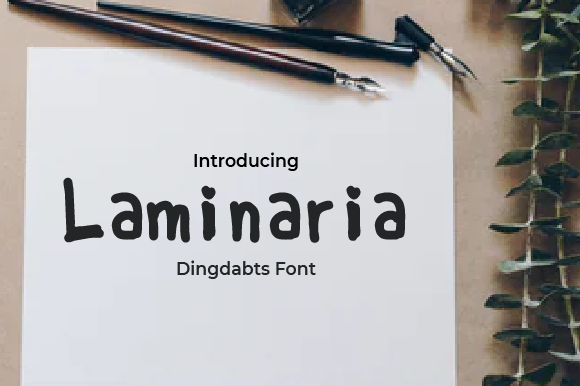
Introduction to Laminaria Font
Have you ever stared at a blank page, waiting for inspiration to strike? You’ve got a creative project in mind, but the perfect font is nowhere to be found. The search for the ideal design resource can be overwhelming, but what if I told you that you’ve been searching for it in the wrong place?
Enter Laminaria Font, a sweet and friendly handwritten font that’s about to become your new best friend. Its natural and unique style makes it incredibly fitting to a large pool of designs, limited only by your imagination. Whether you’re working on a personal project or a high-quality design for a client, Laminaria Font is the perfect addition to take your work to the next level.
Key Features of Laminaria Font
- High-quality design resource for creative projects, ideal for use in graphic design, digital art, and web development.
- Unique, elegant design that can be used to add a touch of sophistication to any creative project or design resource.
- Perfect for use in logos, typography, and other design elements where a high-quality, custom font is required.
Honest Review: Laminaria Font
As a designer, I’m always on the lookout for high-quality design resources to elevate my creative projects. Recently, I had the opportunity to try out the Laminaria Font, and I’m excited to share my honest review.
What works well: ✨ The Laminaria Font is incredibly versatile, making it perfect for a wide range of creative projects, from logos to typography-based designs. The font’s sleek and modern design is sure to impress, and the high-quality vectors make it easy to scale up or down without losing any detail. Additionally, the transparent background allows for seamless integration with any design element.
- High-quality vectors: The font’s vectors are crisp and clear, ensuring that your designs look professional and polished.
Limitations: ⚠️ While the Laminaria Font is an excellent choice for many designers, it may not be suitable for projects that require a more traditional or serif font style.
Overall impression: I’m thoroughly impressed with the Laminaria Font. Its versatility, high-quality vectors, and transparent background make it an excellent addition to any designer’s toolkit. Whether you’re working on a logo, typography-based design, or anything in between, the Laminaria Font is sure to deliver.
Laminaria Font
Tips for Getting the Most Out of Laminaria Font
To maximize the effectiveness of Laminaria Font, use it in combination with other high-quality design resources. Experiment with different font sizes, colors, and alignments to create visually appealing designs.
Laminaria Font is suitable for a wide range of creative projects, including logos, business cards, brochures, and presentations. Its high-quality design and transparent background make it an excellent choice for designers and non-designers alike.